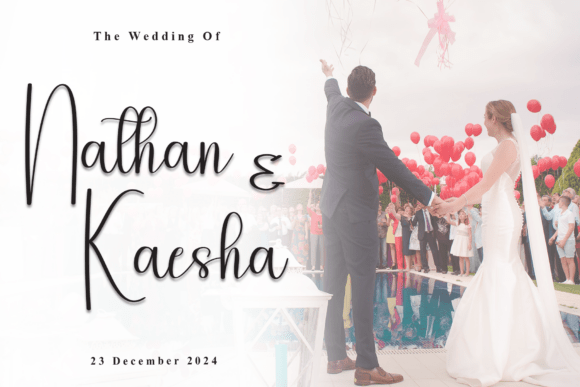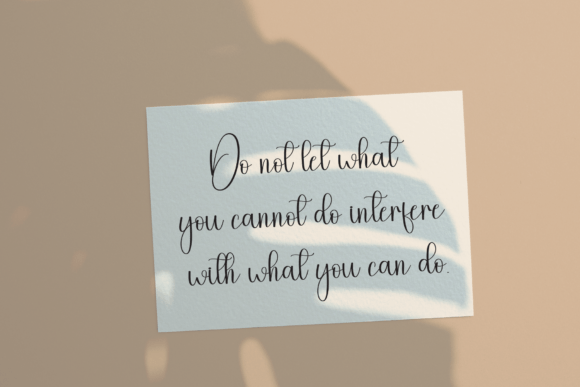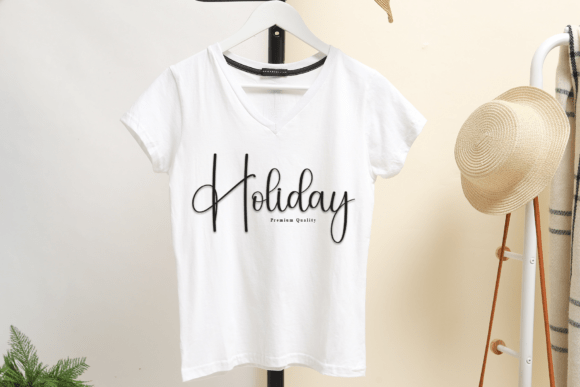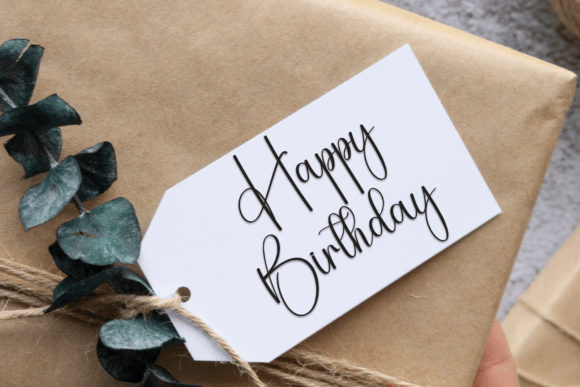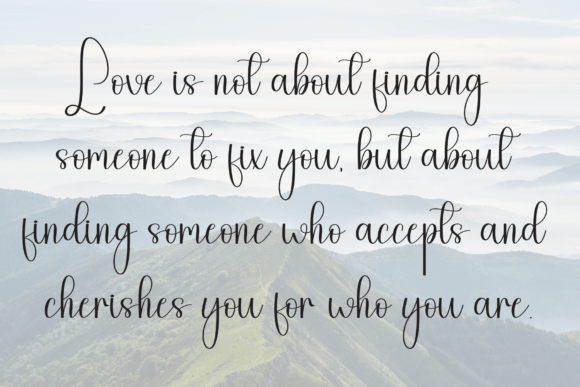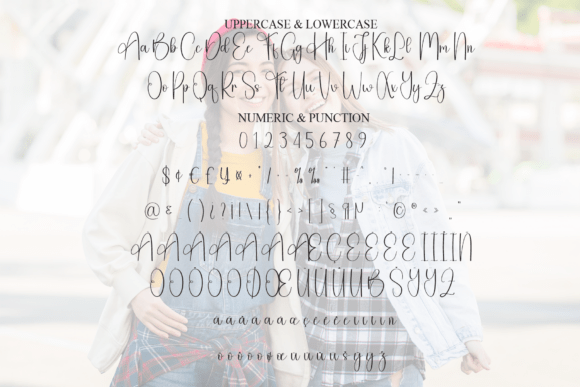
The Bestie Font: A Stylish Handwritten Script to Elevate Your Designs
I’ll never forget the time I was working on a wedding invitation project, and my client asked for a font that was elegant, yet playful. I scoured the internet, trying out font after font, but nothing seemed quite right. That was until I stumbled upon the Bestie font. With its fluid, graceful strokes, it exuded a sense of sophistication and charm that was perfect for the job. In this article, I’ll share my love for the Bestie font, its features, and how to make the most of it in your designs.
An Honest Review of Bestie Font
• ✨ Elegant and refined strokes that add a touch of sophistication to any design
• ✅ Smooth curves and natural flow that create a timeless look
• 💫 Perfect for branding, invitations, and stationery
• 🎨 Highly versatile and can be used for a wide range of design projects
While the Bestie font is an excellent choice for many design projects, there are a few things to keep in mind:
• ⚠️ May not be suitable for very large or very small font sizes
• 🤔 Some users may find the font a bit too ornate for certain design projects
The Story Behind Bestie Font
The Bestie font was designed with the intention of creating a beautiful, elegant script font that would add a touch of sophistication to any design. The designer, inspired by classic calligraphy and handwritten scripts, crafted the Bestie font to be both refined and charming. With its smooth curves and natural flow, the Bestie font has become a popular choice among designers and crafters alike.
Q: What type of designs is Bestie font best suited for?
A: Bestie font is perfect for branding, invitations, stationery, and any design project that requires a touch of elegance and sophistication.